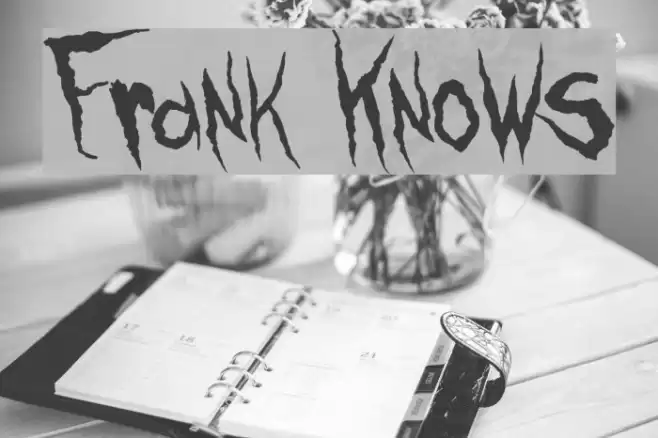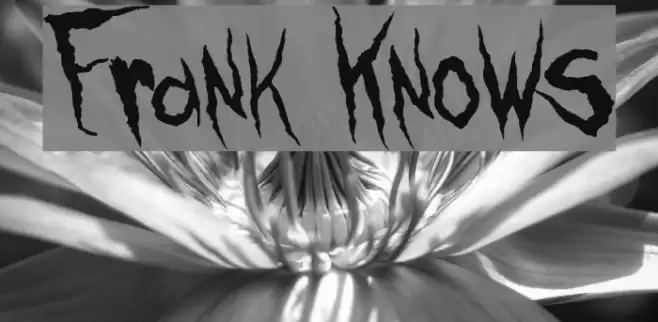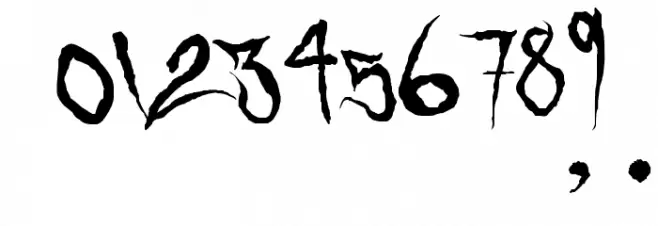
Frank Knows Font
Frank Knows Description
This font exhibits a highly decorative and edgy style, characterized by its jagged and irregular letterforms that evoke a sense of mystery and intrigue. The uppercase and lowercase letters share a consistent theme of sharp, thorn-like extensions, creating a visually striking appearance. Numbers and special characters maintain this aesthetic, ensuring a cohesive look throughout. The font's unique design makes it ideal for projects that require a bold and unconventional statement, such as horror-themed graphics or edgy branding materials.
A jagged, edgy font with thorn-like extensions for a mysterious look from Handwritten fonts.
- Proposed Projects: Ideal for horror-themed graphics, edgy branding, Halloween posters, and album covers.